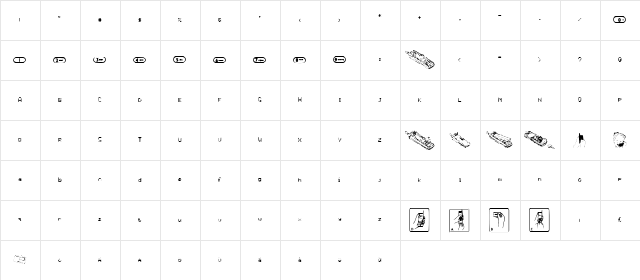
A Mobile Life Pling..Plong
Design Context for A Mobile Life Typeface
A Mobile Life offers clean, dependable letterforms without strong stylistic allegiance, making it a practical choice for designers who need flexibility.